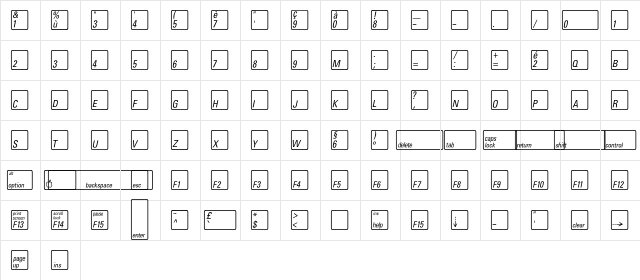
KeyFontFrench Bold
Design Context for KeyFontFrench Typeface
KeyFontFrench offers clean, dependable letterforms without strong stylistic allegiance, making it a practical choice for designers who need flexibility. The heavy weight commands attention and anchors typographic hierarchies.